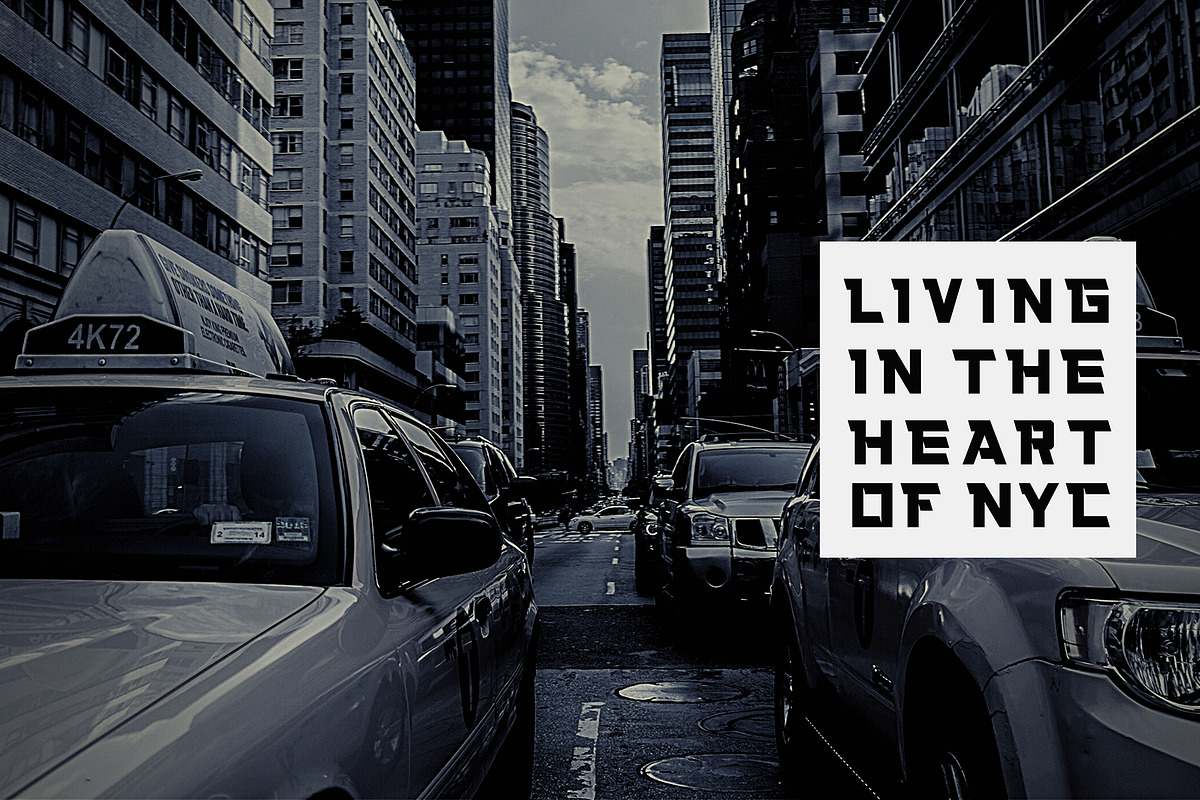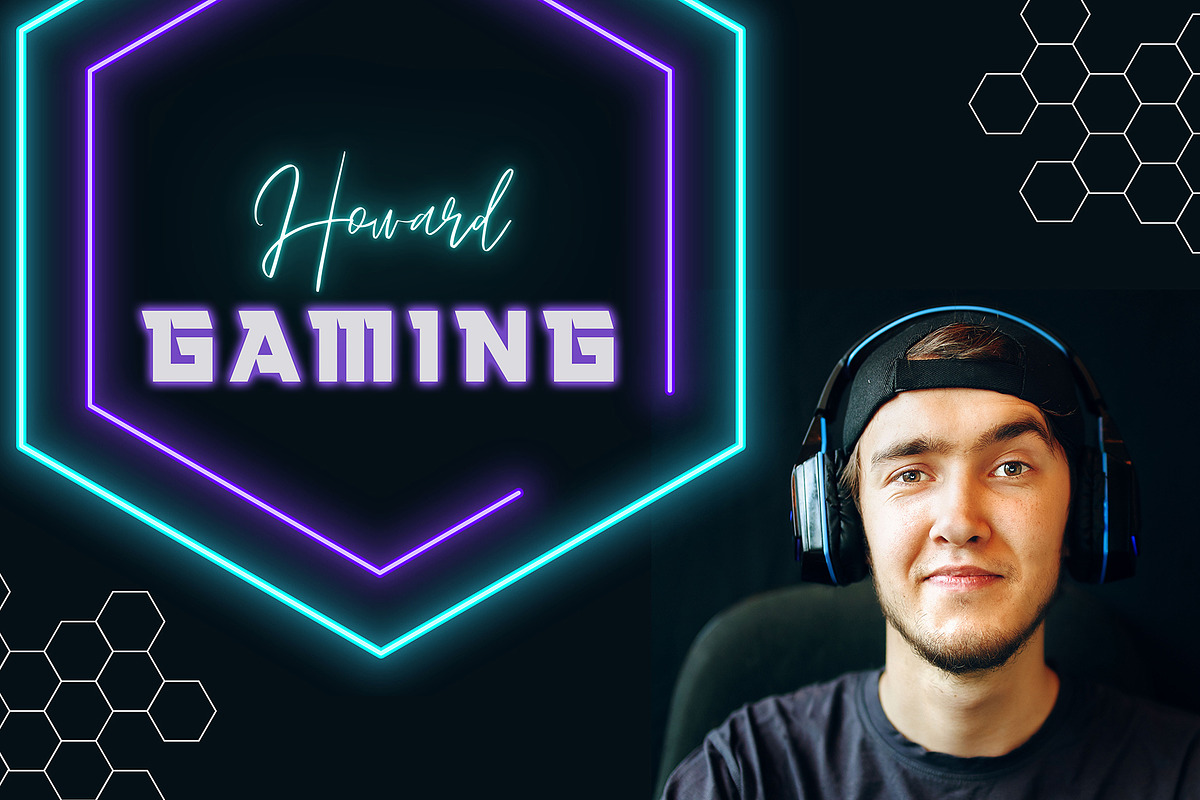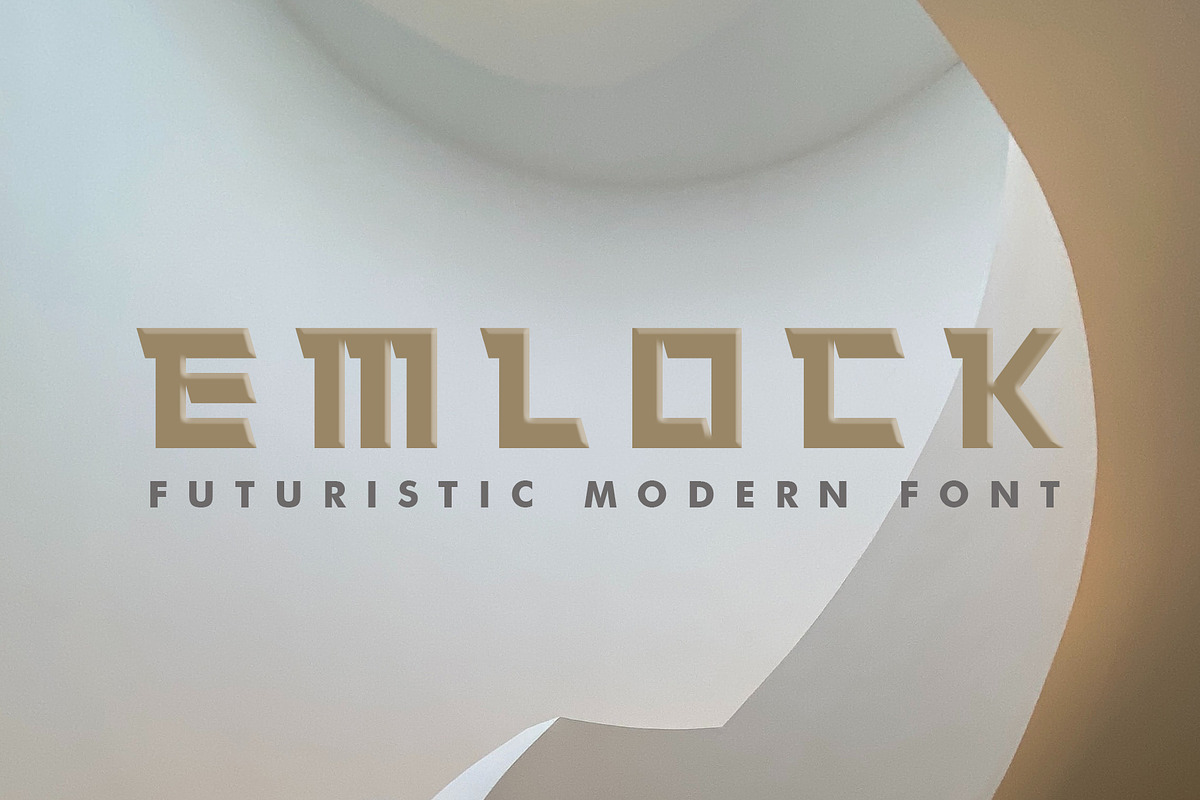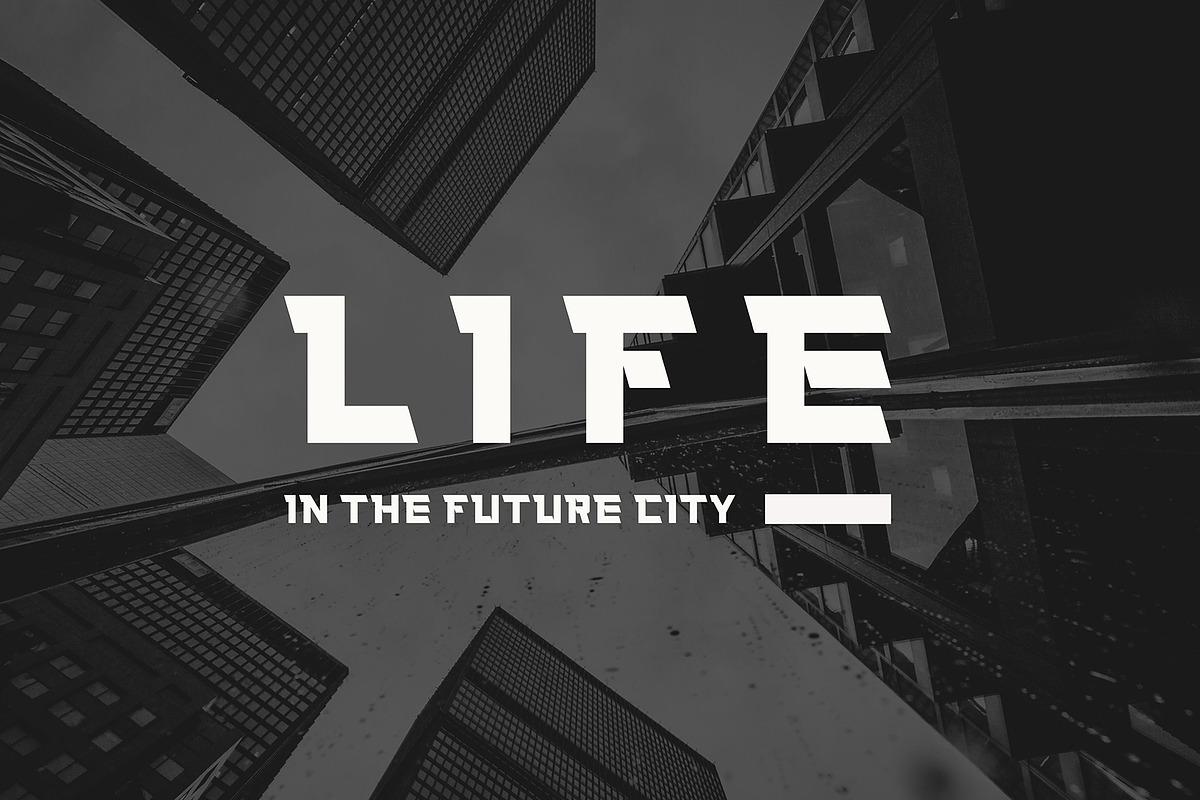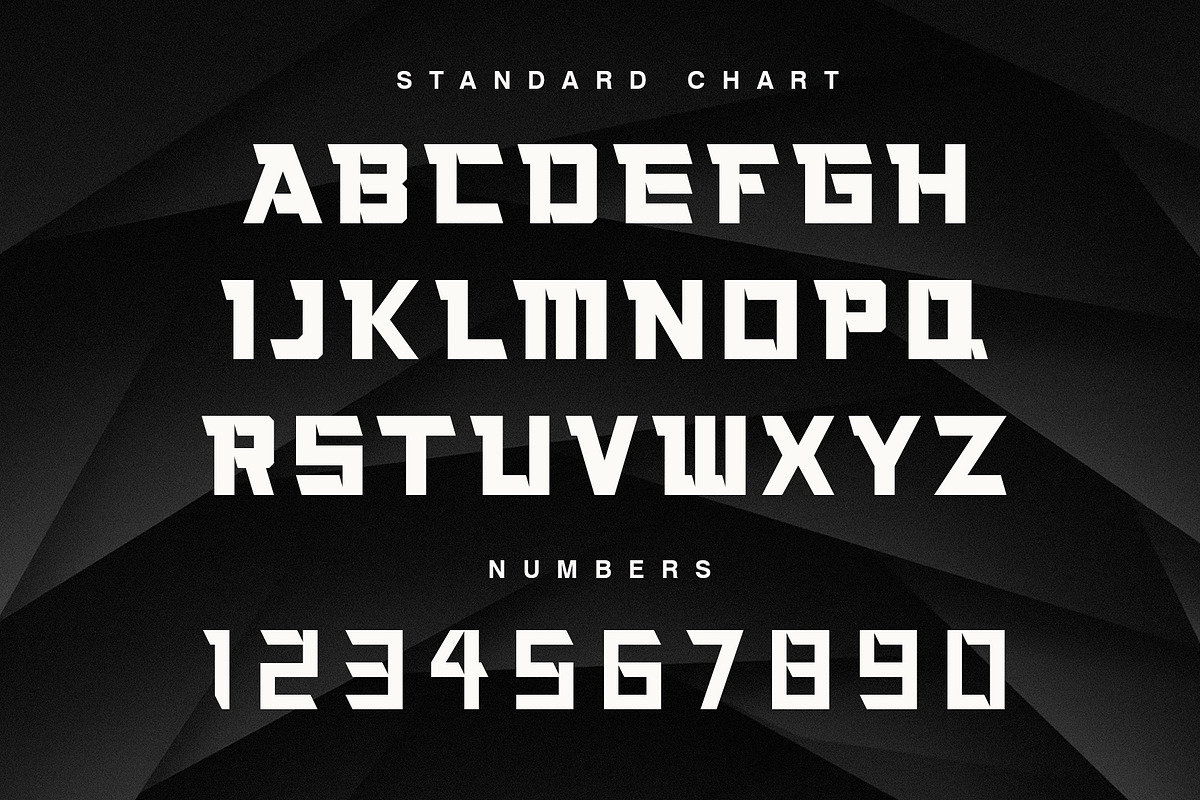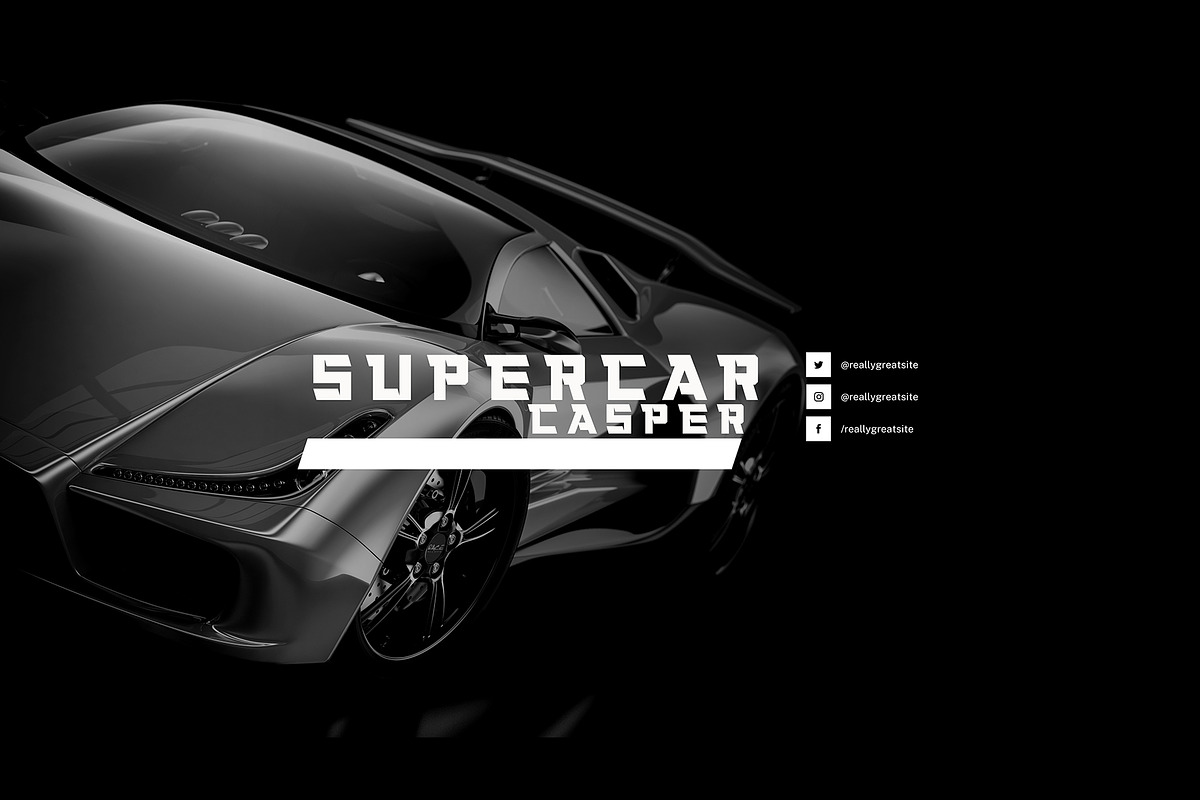
Emlock
Emlock is a sans display font based with unique font that will make your design looks futuristic and modern. a font with a futuristic edge, geometric corners, perfect for technology, digital, modern futuristic theme. Perfect for logo, poster, headlines, title and many more projects.